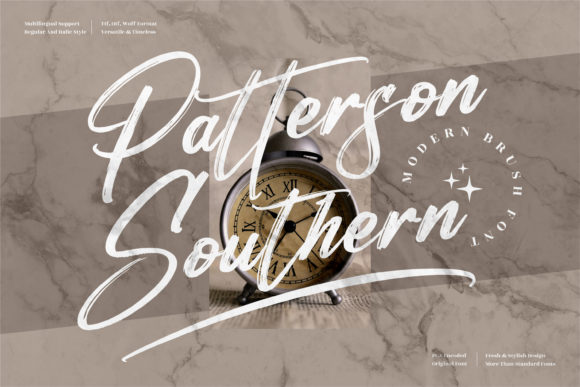
Patterson Southern: A Stroke of Elegance for Your Digital Palette
Embark on a visual journey with Patterson Southern, a script font that exudes charm and sophistication. Inspired by the allure of handwritten artistry, this font breathes life into your digital creations, leaving an unforgettable mark on your audience.
Crafted with meticulous attention to detail, Patterson Southern boasts a graceful flow and an elegant poise that commands attention. Each letter dances across the screen, carrying a sense of warmth and authenticity that resonates with viewers. Whether you're designing a website, crafting social media posts, or creating eye-catching graphics, Patterson Southern adds a touch of luxury and allure to every project.
Step into a world where beauty and functionality intertwine seamlessly. Patterson Southern's unique design elevates your website's menu bar, transforming it from a mere navigation tool into an aesthetic masterpiece. Its fluid strokes and captivating curves draw the eye, inviting users to explore your site's offerings with a sense of delight.
With Patterson Southern as your digital companion, you'll discover a font that complements a myriad of design styles. From classic and timeless layouts to modern and edgy aesthetics, this font adapts effortlessly, adding a touch of elegance and refinement to each project. Unleash your creativity and let Patterson Southern become your muse, guiding you towards design brilliance.
Immerse yourself in a world of limitless possibilities with Patterson Southern. Its versatility knows no bounds, making it the perfect choice for a diverse range of creative endeavors. Craft stunning logos that leave a lasting impression, or design captivating social media posts that ignite engagement. Create eye-catching headers and titles that command attention, or transform your website's content into a visual masterpiece.
Patterson Southern is more than just a font; it's an experience that captivates and inspires. Its graceful strokes and enchanting aura transport you to a realm of creativity and imagination, where every design project becomes a work of art. Embrace the allure of Patterson Southern and watch as your digital creations bloom with beauty and sophistication.